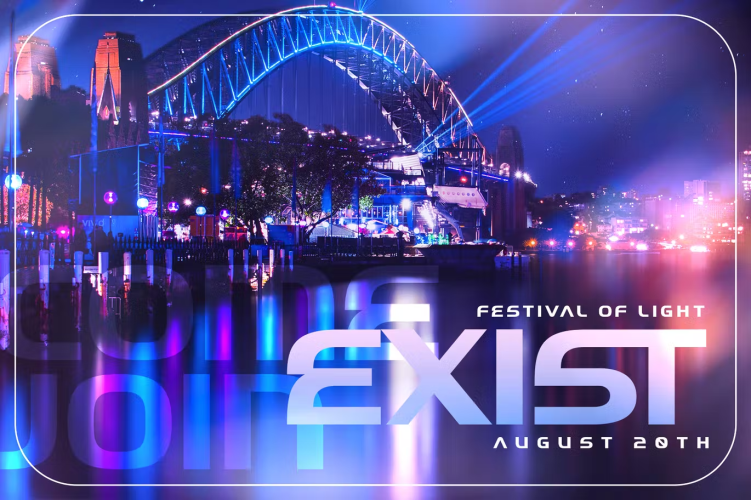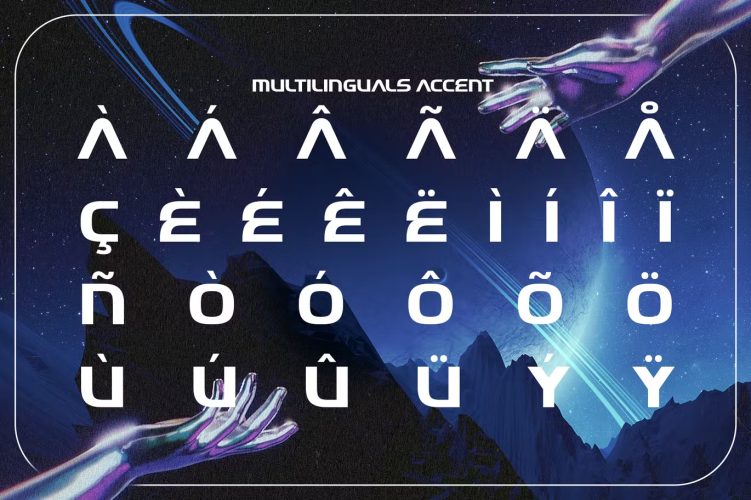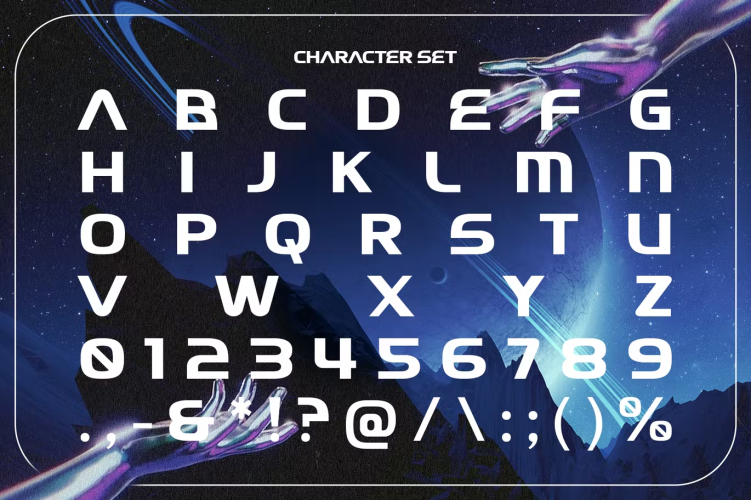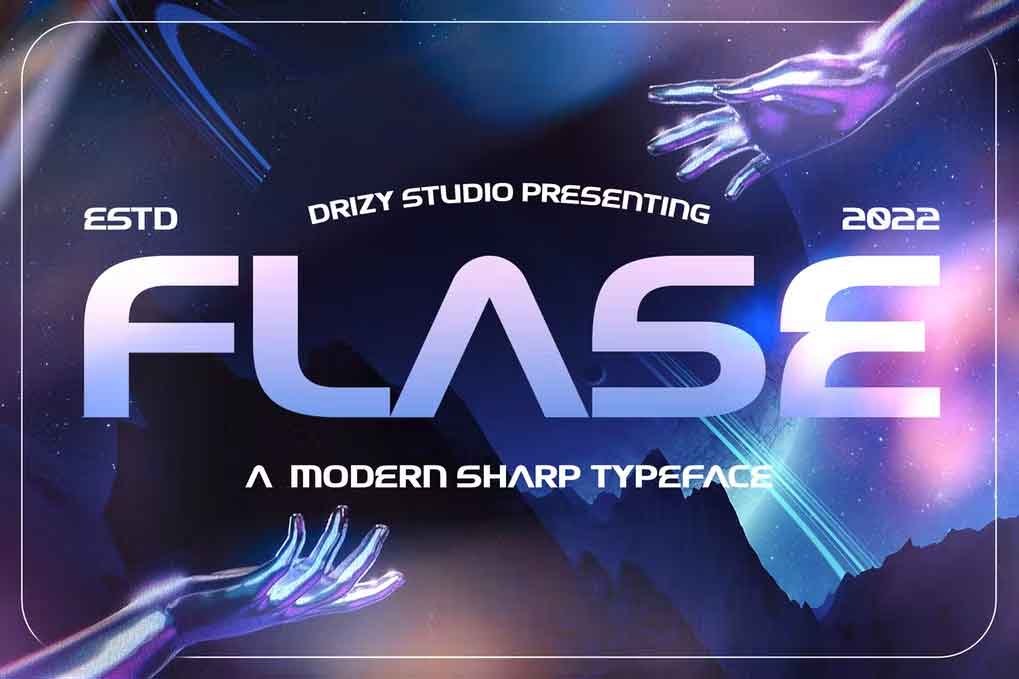
Flase Font
Flase font is a special font for modern unique design look. Offering all the basic styles you will need for a successful project.
Flase Font is a Sans Serif Fonts font that brings a professional and versatile look to your projects. Flase font is a special font for modern unique design look.